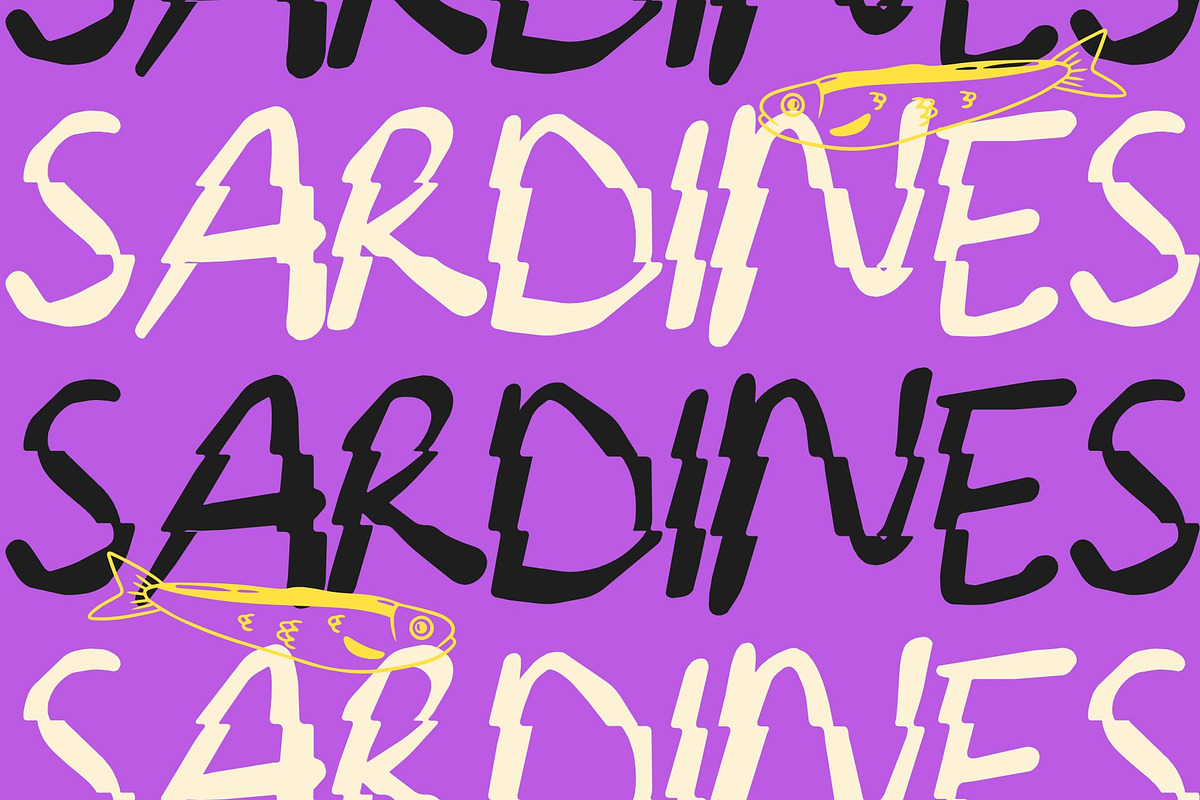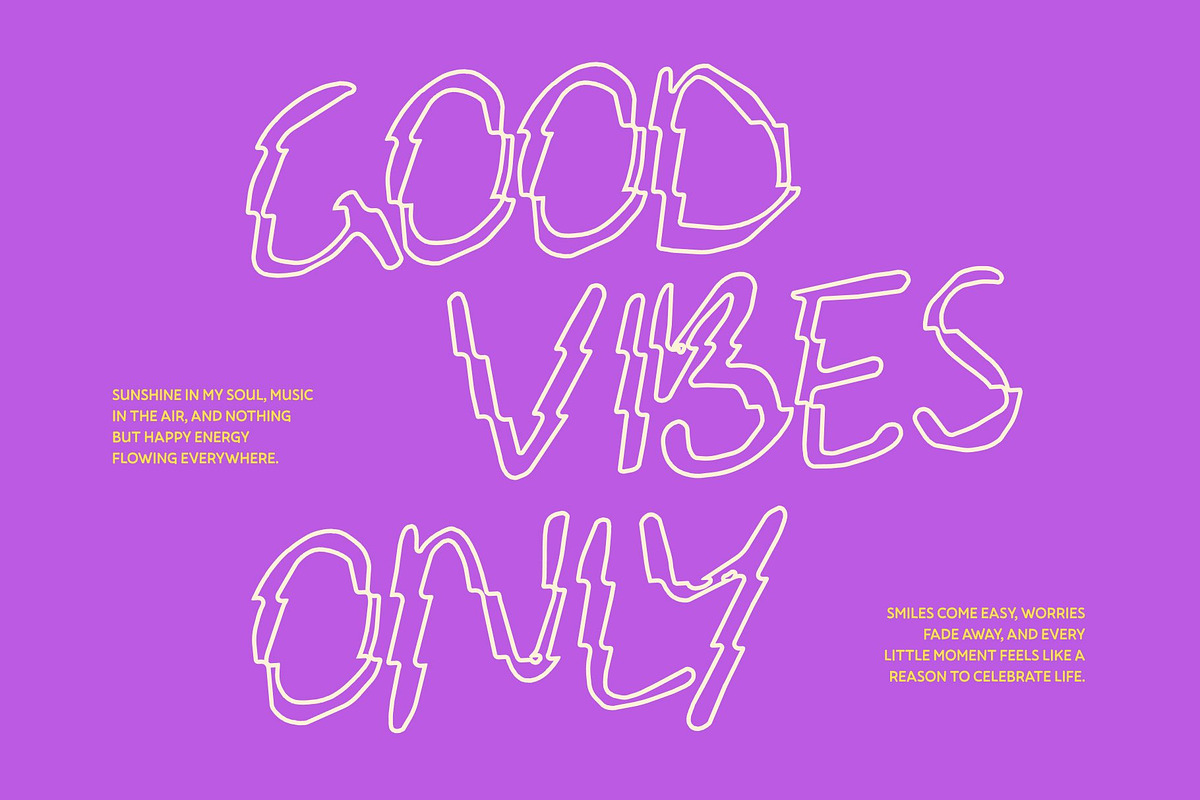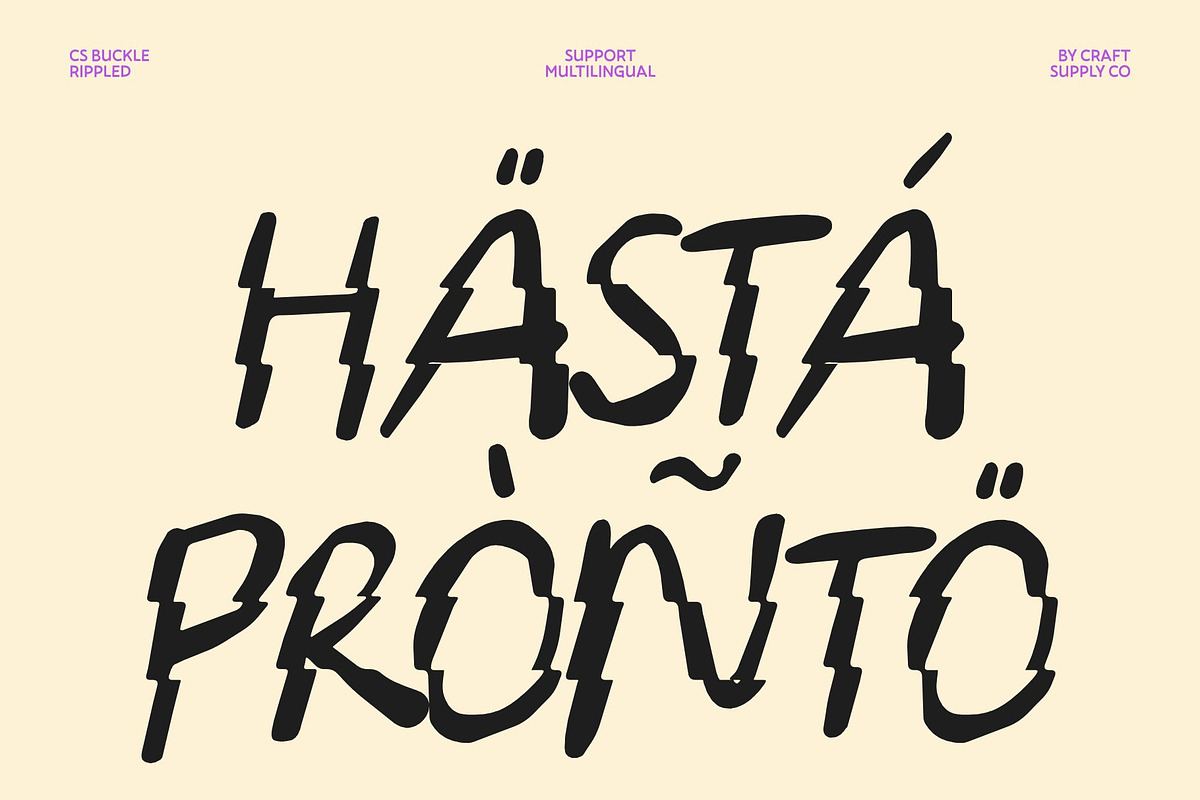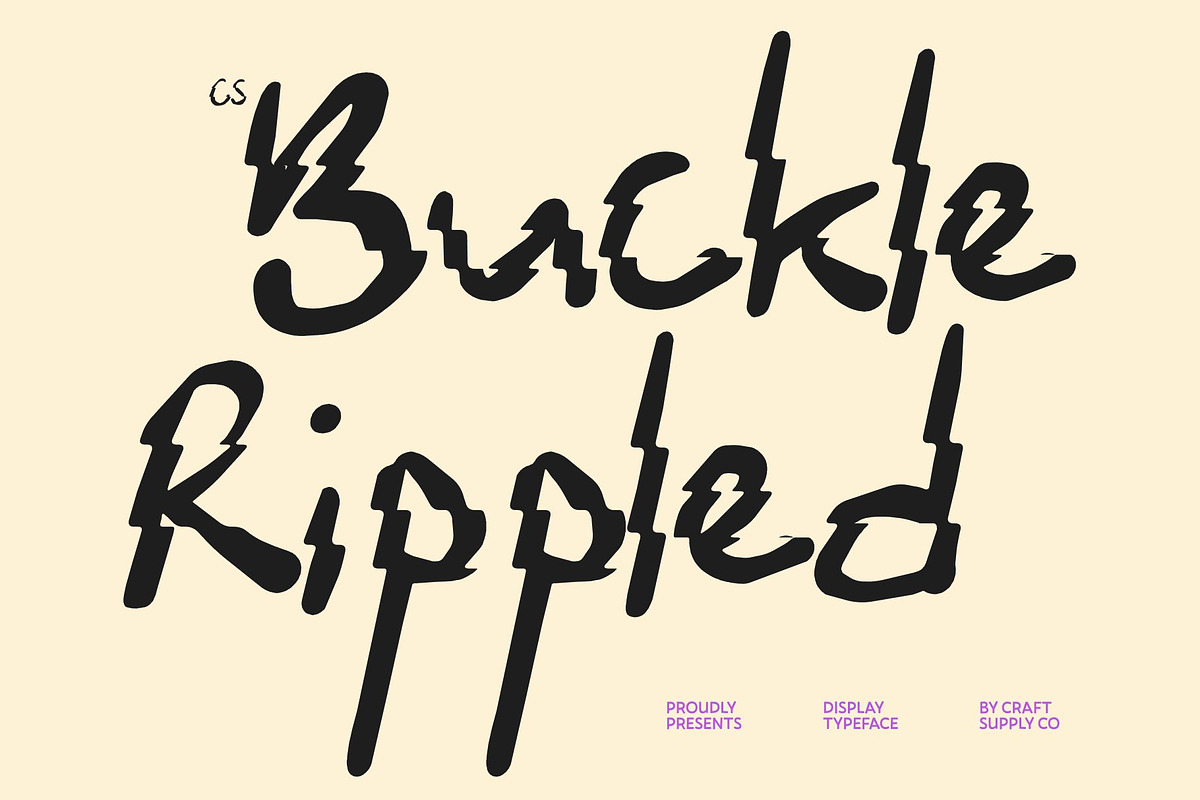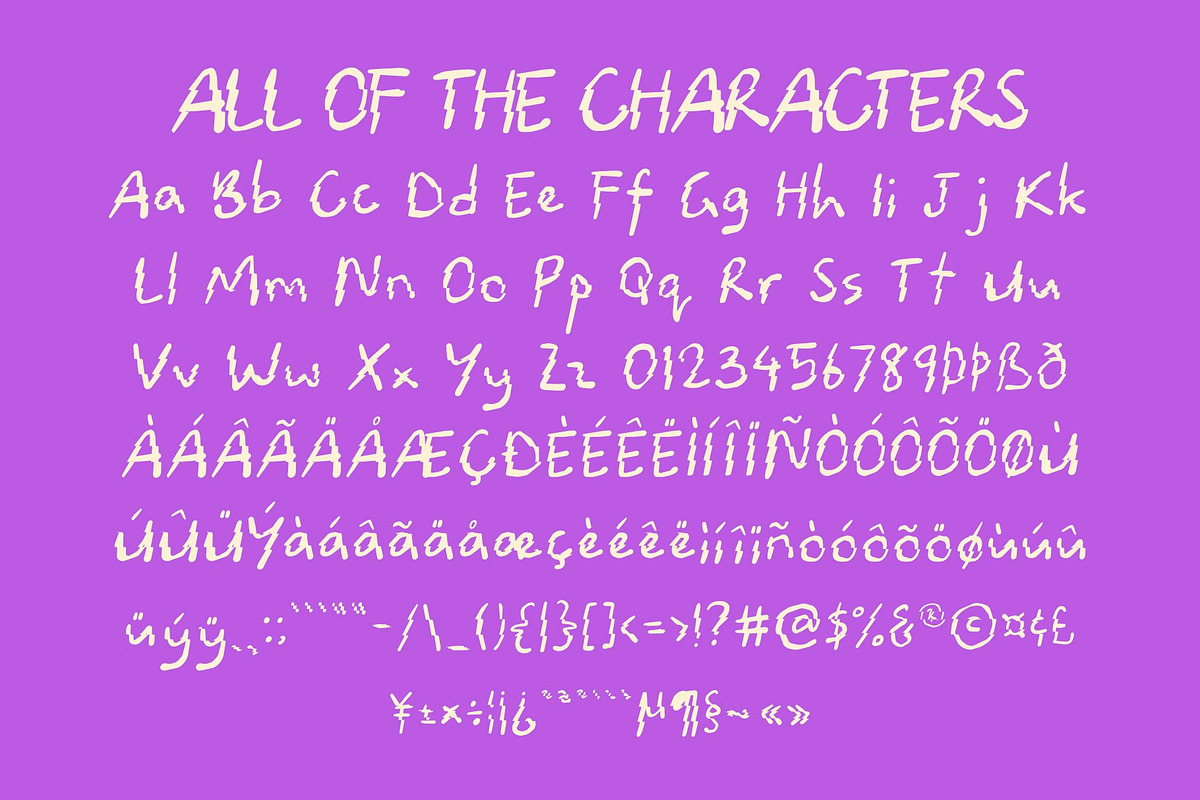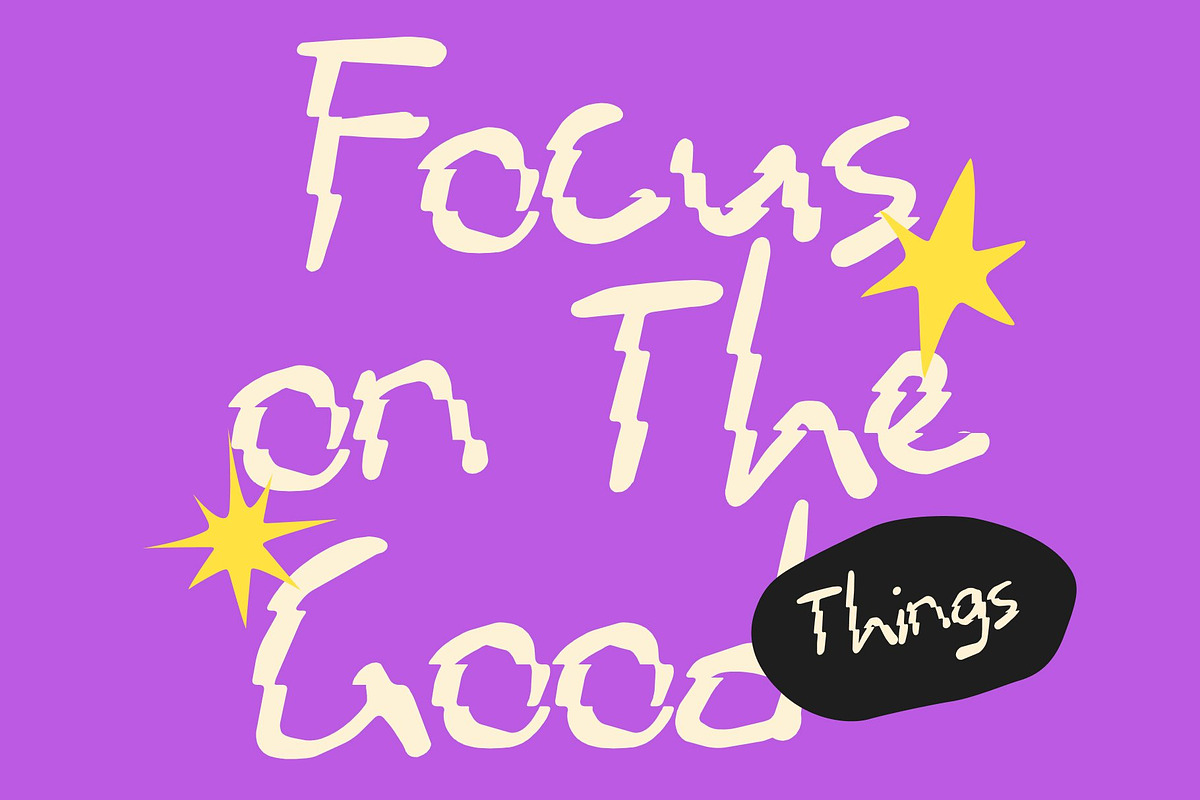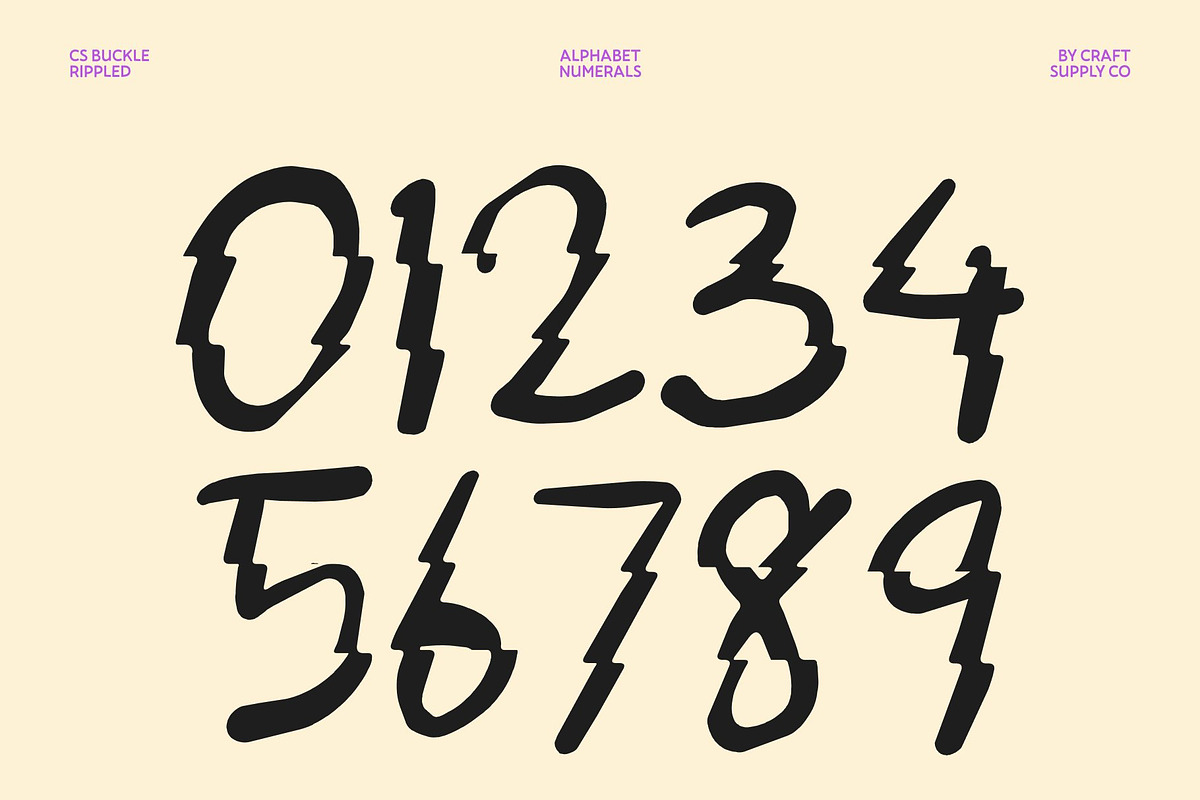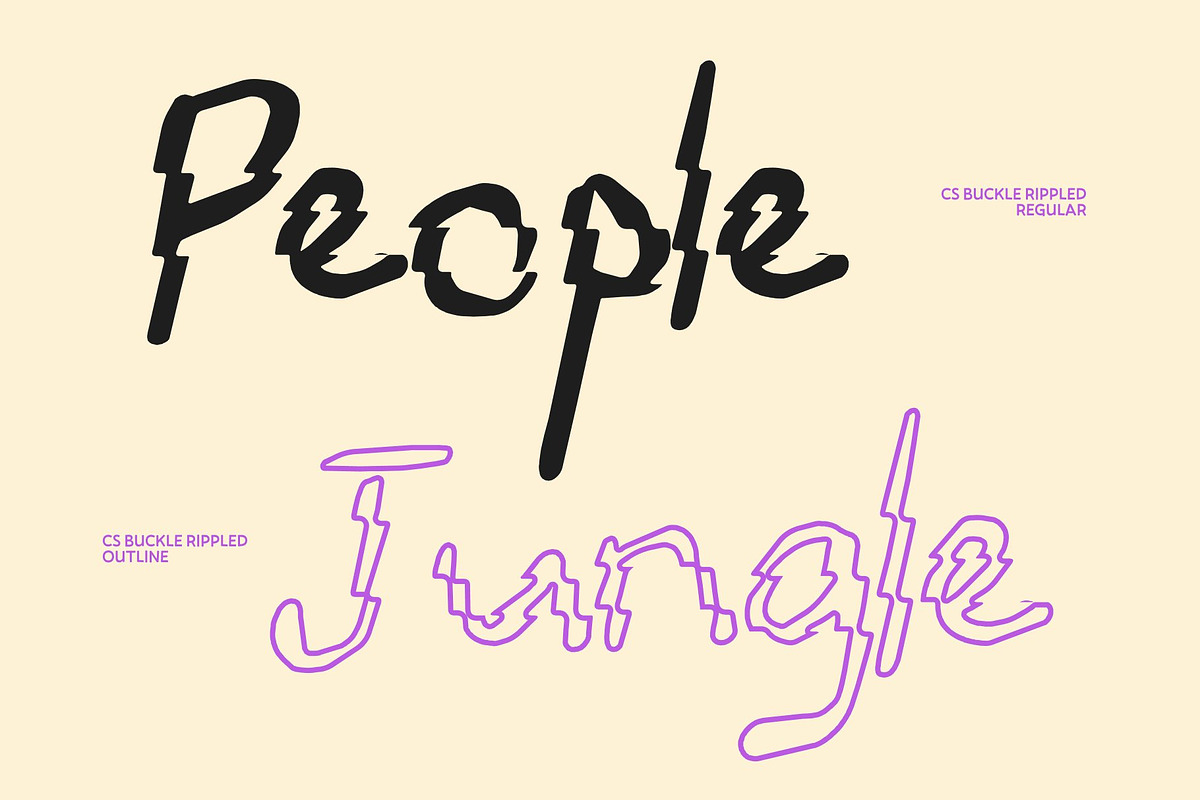
CS Buckle Rippled
CS Buckle Rippled – Imperfect Bold Font with Playful Rebellious Motion
Ugly Yet Bold Sans Serif with Irregular Expression This is a bold and deliberately imperfect sans serif font that embraces chaos, irregularity, and creative freedom. Designed to break traditional typographic rules, its uneven strokes and unpolished shapes create a raw and energetic visual identity. This font turns “ugliness” into a design strength, delivering a fearless and unconventional aesthetic.
Irregular Forms for Authentic Creative Expression Every letter in this font is shaped with intentional unpredictability, featuring uneven lines, distorted proportions, and spontaneous construction. These irregular forms give the font a handcrafted and human quality, making each word feel unique and emotionally driven. This expressive inconsistency enhances its artistic character.
Playful Energy with Rebellious Visual Rhythm This font thrives on playful chaos and dynamic rhythm, injecting youthful energy into any composition. Its rough edges and lively structure create a sense of movement that feels spontaneous and free-spirited. This energetic personality makes it especially effective for youth branding, experimental posters, editorial layouts, and expressive typography.
Rippled Effect for Fluid Chaos and Dynamic Motion The rippled distortion amplifies the font’s chaotic personality by adding a fluid, wave-like motion that feels unstable yet visually engaging. Inspired by liquid reflections and distorted surfaces, this effect enhances the raw and rebellious tone of the typeface. Ideal for underground visuals, art projects, zines, music posters, experimental branding, and bold creative campaigns.
CS Buckle Rippled Regular
CS Buckle Rippled Outline